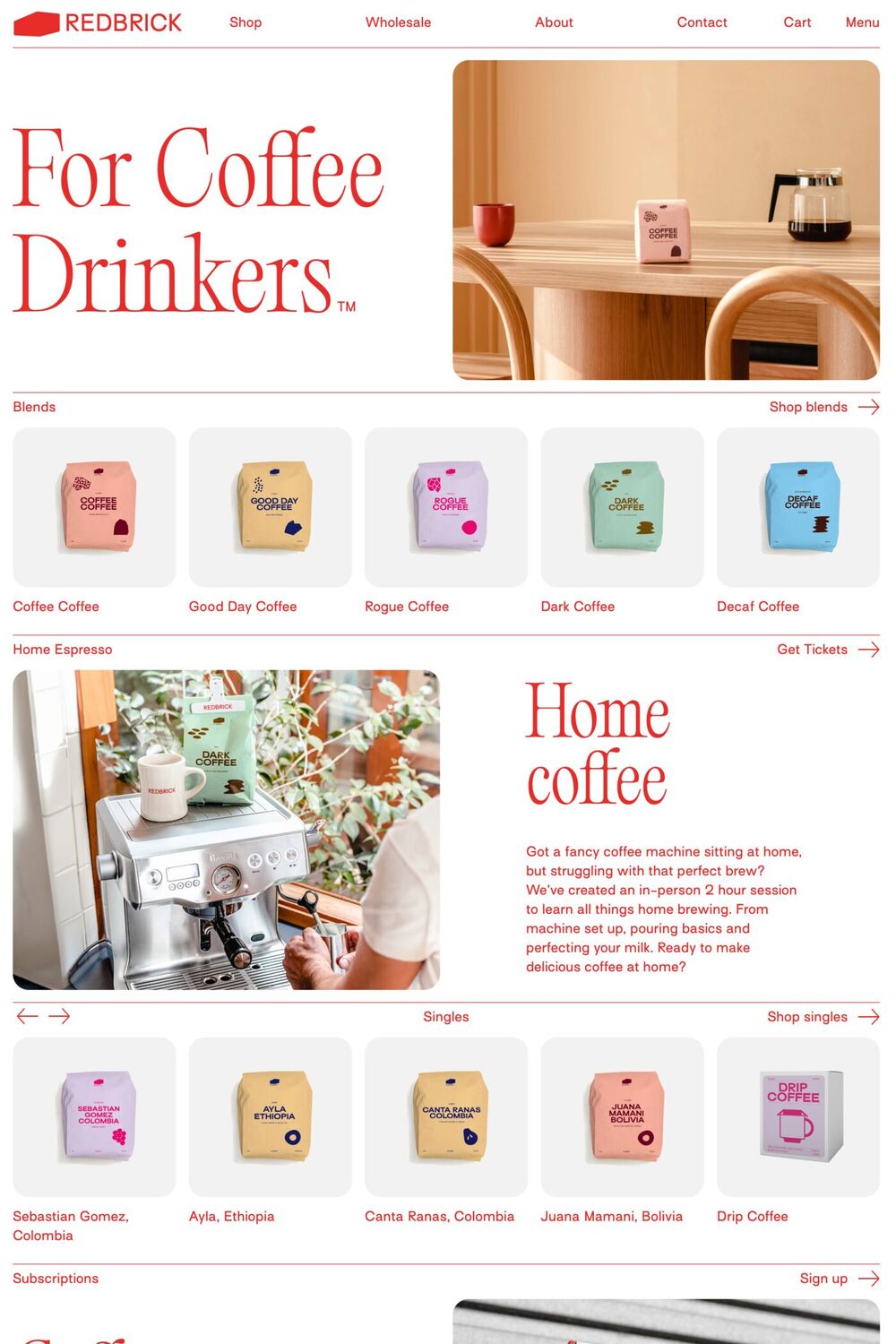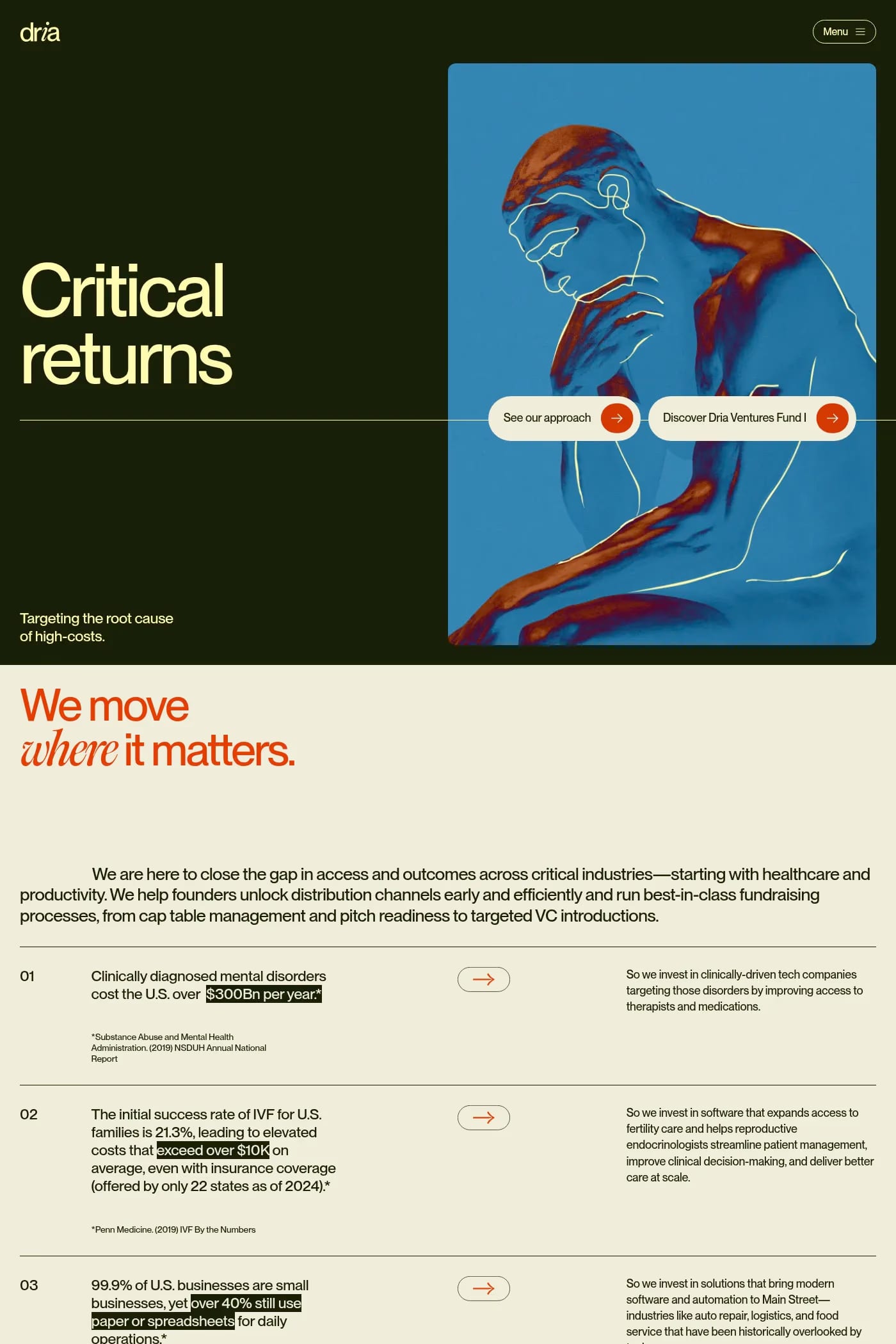
Editorial Old is a serif typeface from Pangram.
Editorial Old is a 'fresh' take on one of our most popular classics Editorial New. So to understand Editorial Old we need to go back to Editorial New’s Concept for a second.